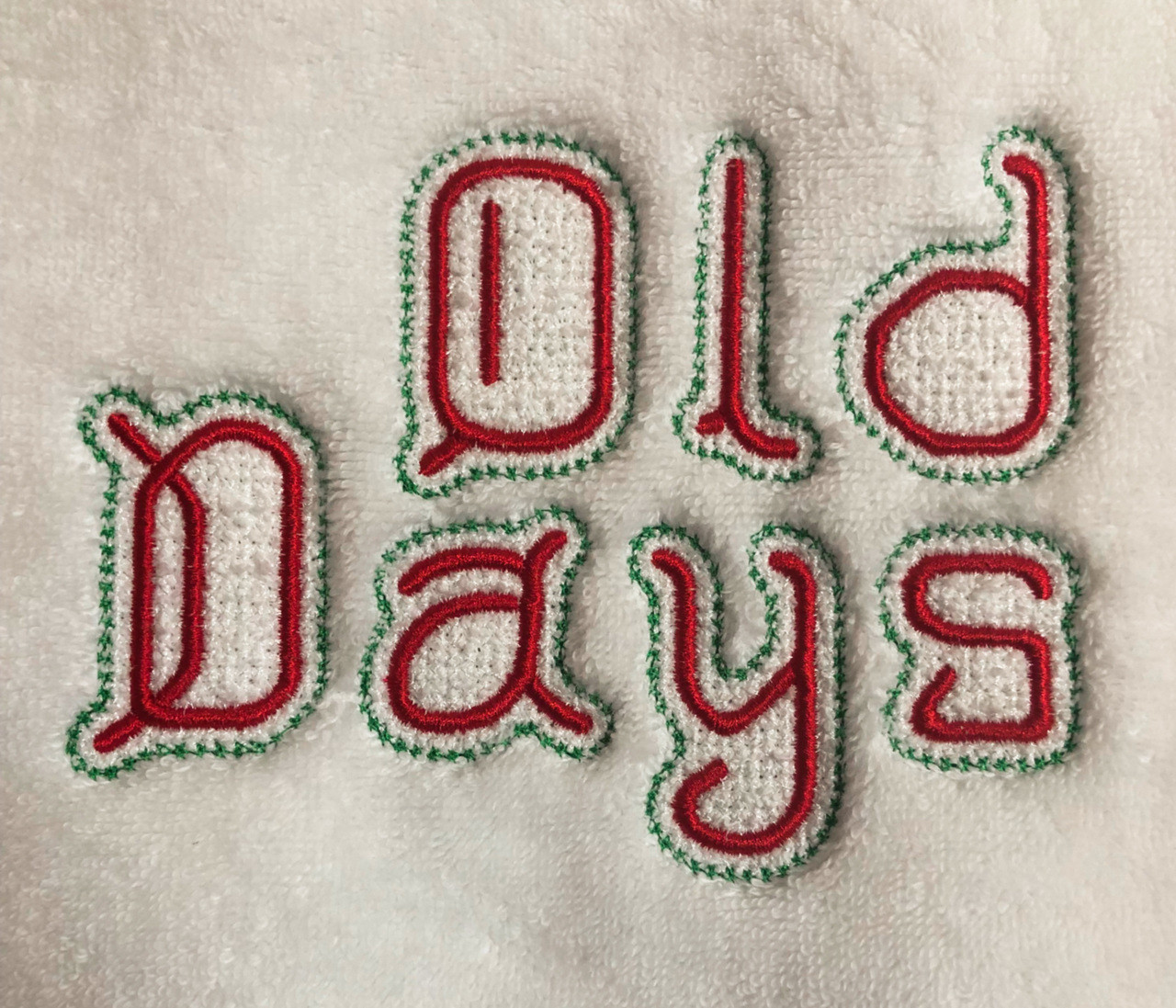
734 Old Days Decorative Font
734 Old Days Decorative Font comes in 2.5", 3", 3.5", 4" and 4.5" heights based on the capital "A" (height includes knock-down area). All sizes include uppercase letters, lowercase letters, numbers and ten punctuation marks as show in the character chart pictured above.
All characters are set up as three colors so you can stitch out in coordinating colors or use the same color for a monochromatic look. The first area to stitch is a cross-stitch style knock-down area to lower the pile of lofty fabrics like terry cloth and fleece. Next, the knock-down area is outlined with a delicate star-stitch border. Last is the satin stitched letters with increased density for better coverage.